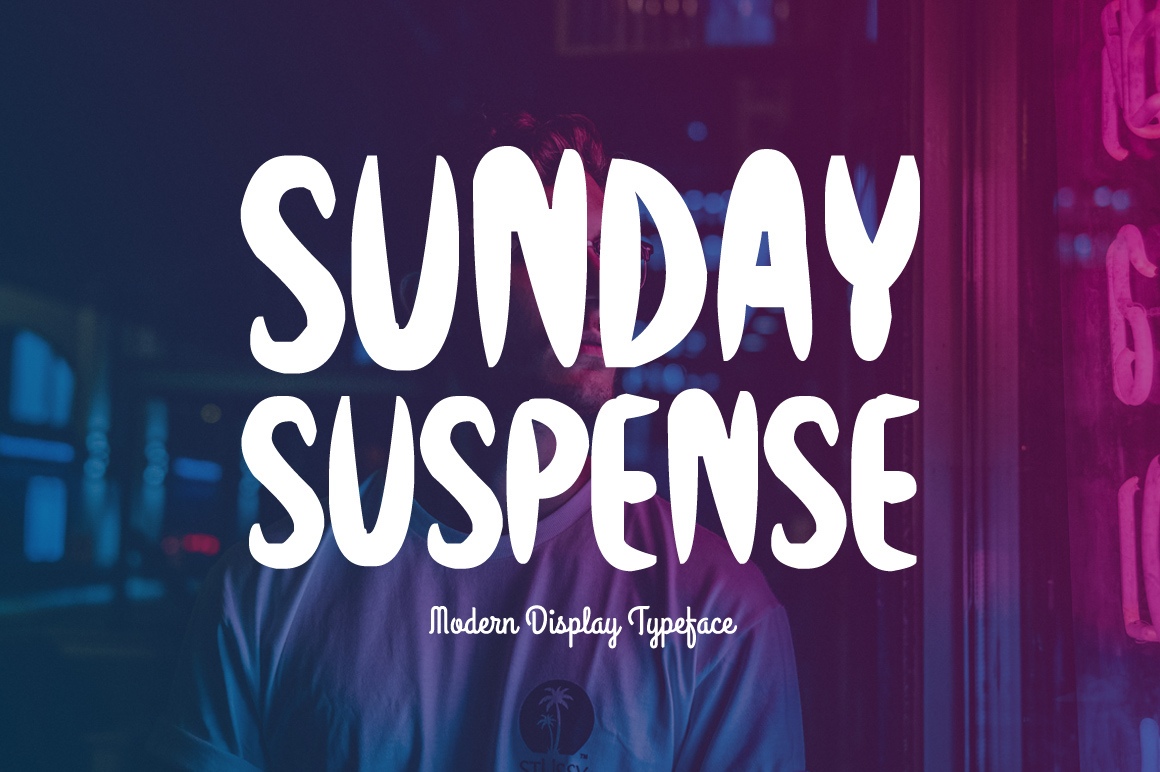
Sunday Suspense Font
Sunday Suspense Font thrives in mystery novel covers, thriller movie posters, crime podcast branding, detective series titles, suspense audiobook designs, psychological thriller marketing, noir film credits, mystery game interfaces, true crime documentaries, escape room signage, murder mystery events, and atmospheric horror campaigns where tension and intrigue create captivating psychological experiences.
This electrifying typeface generates excitement through its masterful ability to evoke psychological tension and mysterious atmosphere that keeps viewers engaged and intrigued. Sunday Suspense Font captivates audiences with its carefully crafted letterforms that suggest hidden secrets and unresolved mysteries, featuring subtle irregularities and atmospheric details that create an unsettling yet compelling visual experience. The font's sophisticated design approach balances readability with psychological impact, incorporating elements that hint at danger, uncertainty, and the unknown. Its distinctive character reflects the essence of suspenseful storytelling, making it perfect for brands and projects that want to create immediate emotional engagement through typography.
The Sunday Suspense Font family includes multiple atmospheric variations such as Regular, Bold, Light, Condensed, and Distressed versions, each maintaining the font's characteristic suspenseful quality while offering different levels of dramatic intensity. The collection features alternative characters with varying degrees of distortion, special ligatures that enhance the mysterious atmosphere, and decorative elements that add psychological depth. Additional stylistic sets include shadowed effects, weathered textures, and atmospheric treatments that amplify the font's suspenseful impact.
Entertainment industry professionals consistently select Sunday Suspense Font Free Download for projects requiring typography that creates immediate emotional response and psychological engagement. This remarkable typeface excels in applications where building tension and maintaining audience interest are paramount to success. The font's atmospheric qualities make it particularly effective for mystery and thriller genres where typography must contribute to the overall narrative experience and emotional journey.
Whether you're designing book covers for psychological thrillers, creating marketing materials for mystery productions, developing branding for true crime content, or producing atmospheric event promotions, Sunday Suspense Font delivers unmatched psychological impact. Its ability to convey mystery, tension, and intrigue makes it invaluable for creators working in suspense and thriller genres. The font's atmospheric mastery ensures your designs will capture audiences' attention and maintain their engagement through compelling visual storytelling that perfectly complements suspenseful narratives.